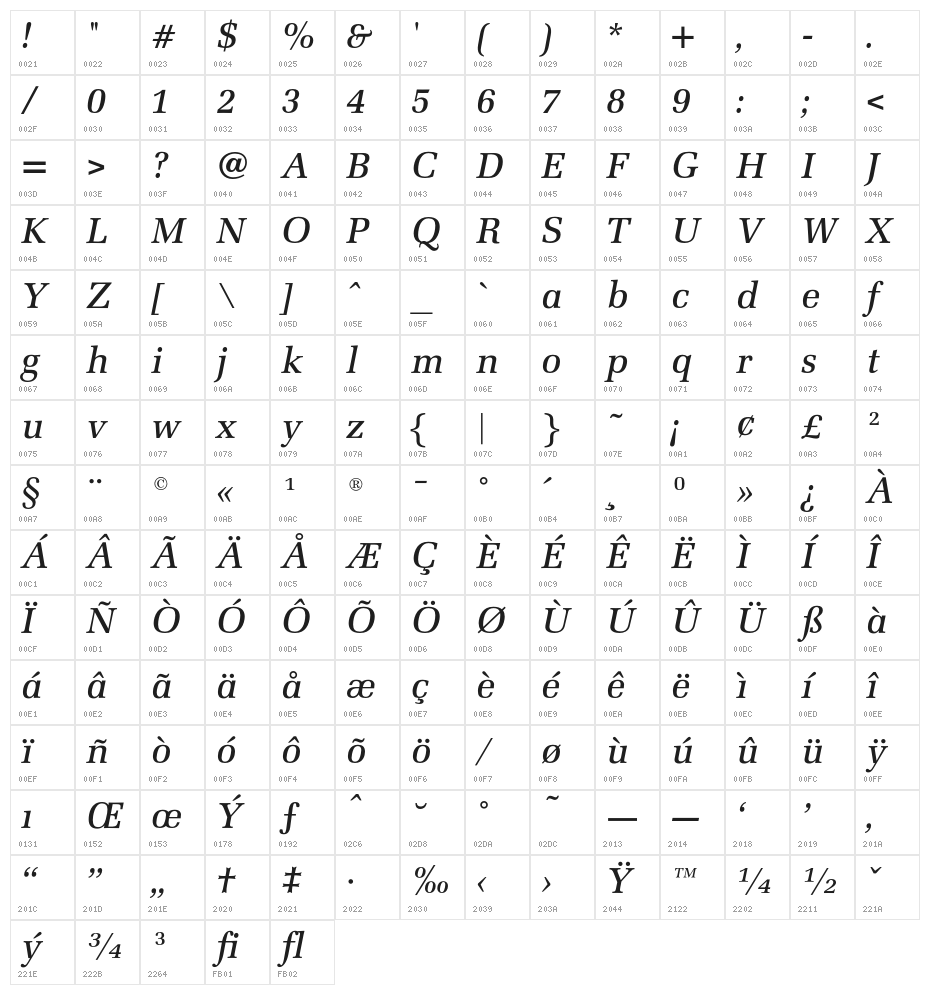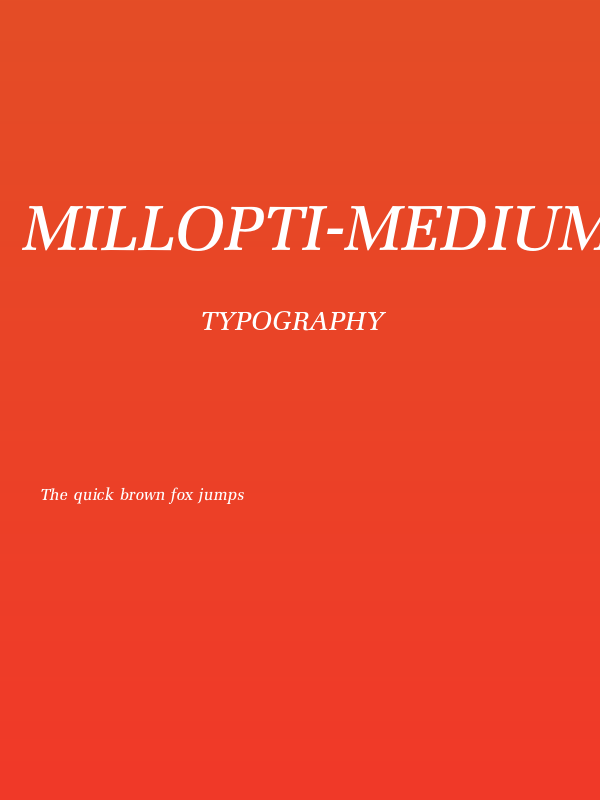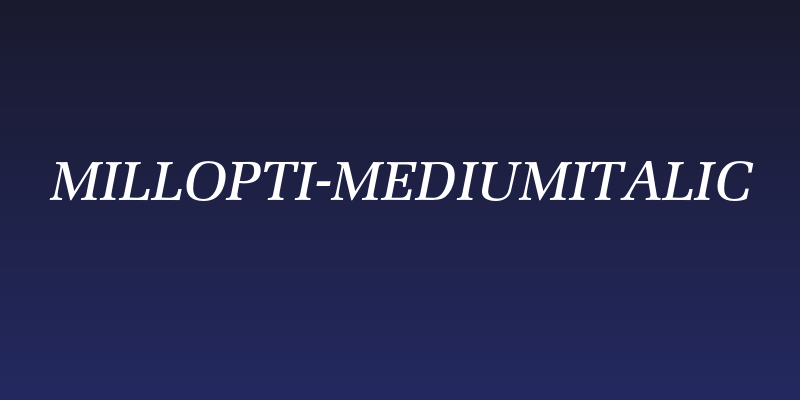
MillOpti-MediumItalic Font
MillOpti-MediumItalic Description
This font exhibits a classic serif style with a medium weight and an italic slant, giving it a sophisticated and elegant appearance. The characters are well-defined with a moderate contrast between thick and thin strokes, enhancing readability while maintaining a refined aesthetic. The uppercase letters are slightly taller than the lowercase, providing a balanced and harmonious look. The numerals are proportional, aligning well with the overall design. Special characters are crafted with the same attention to detail, ensuring consistency across all glyphs.